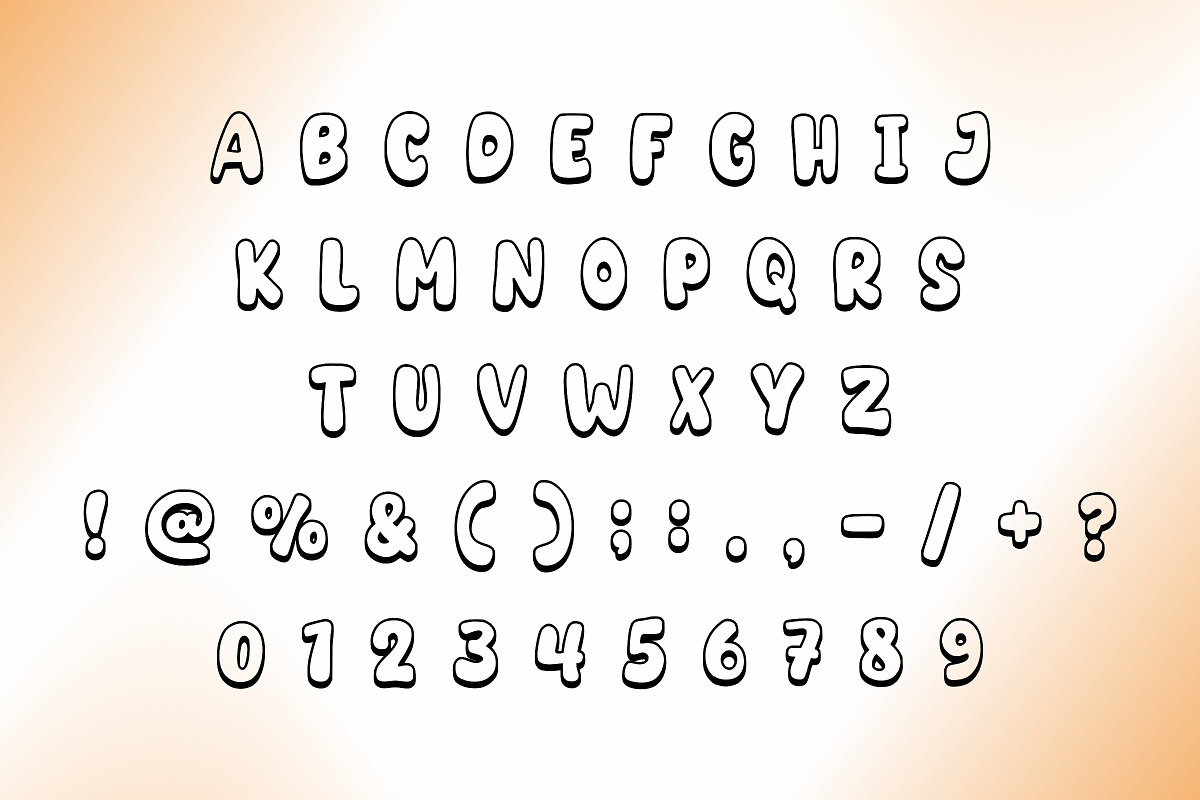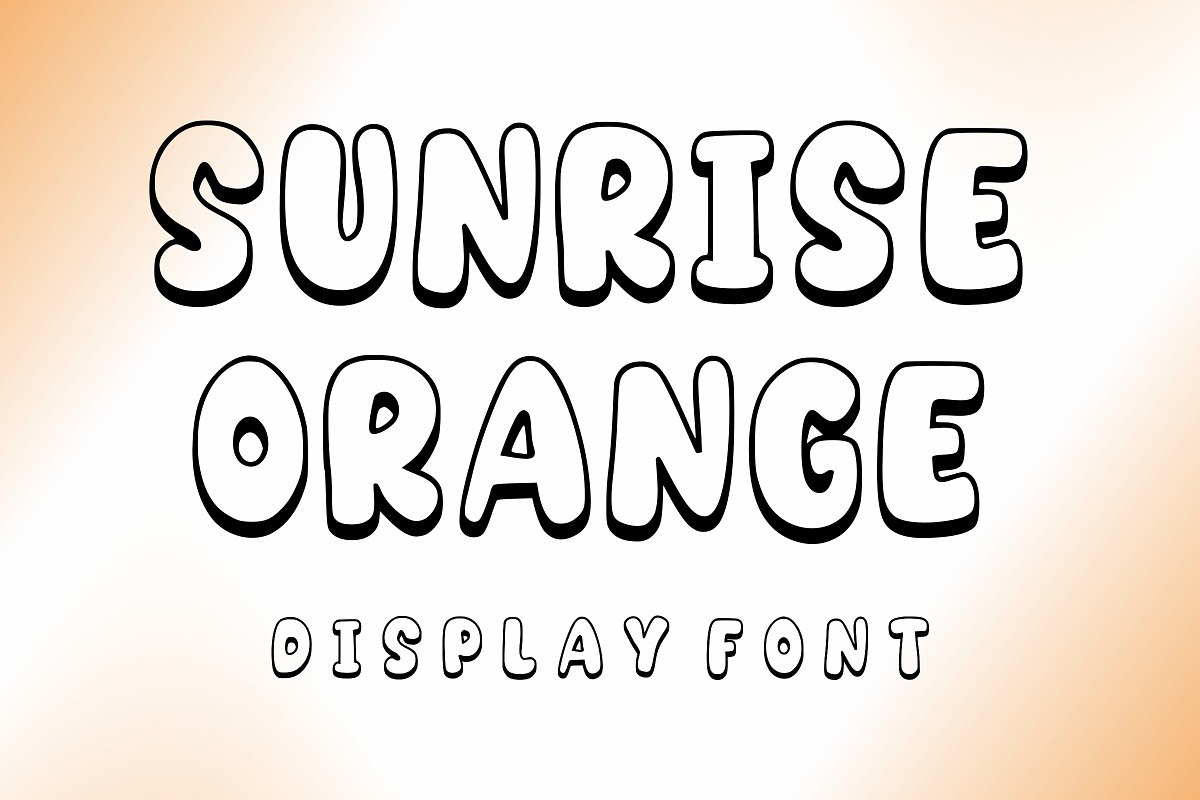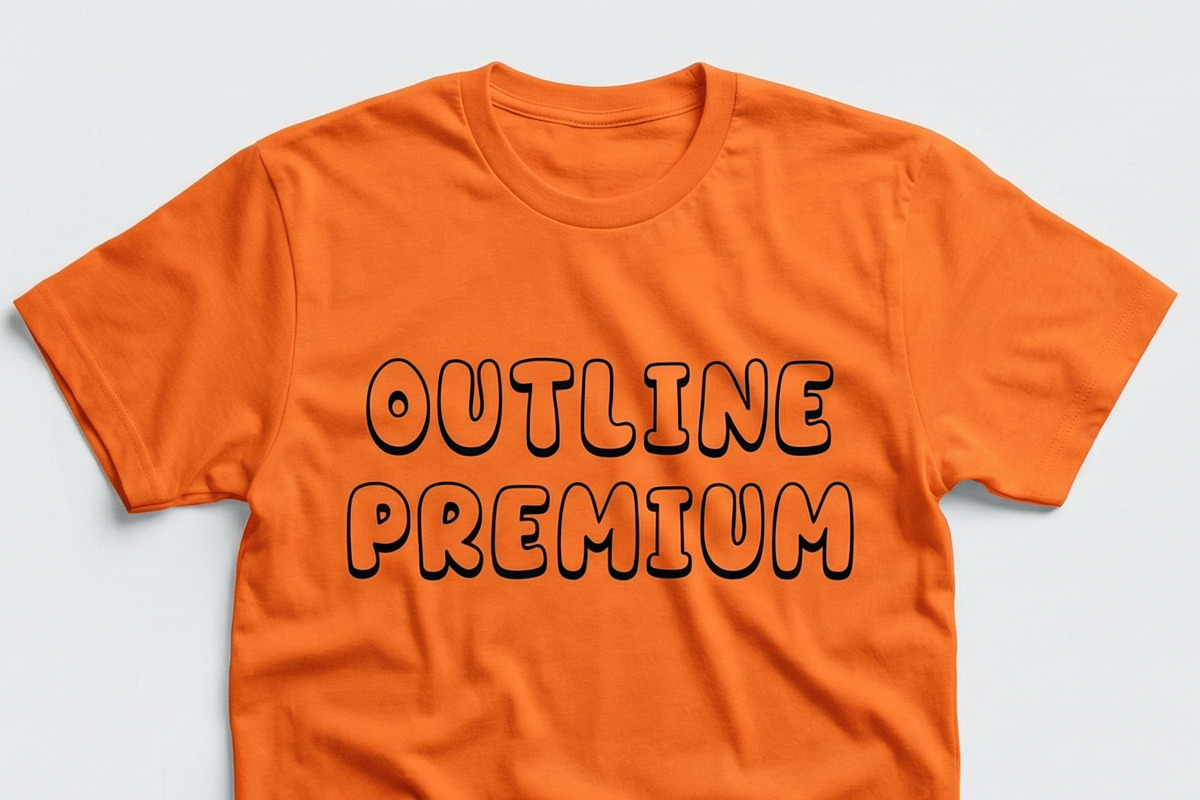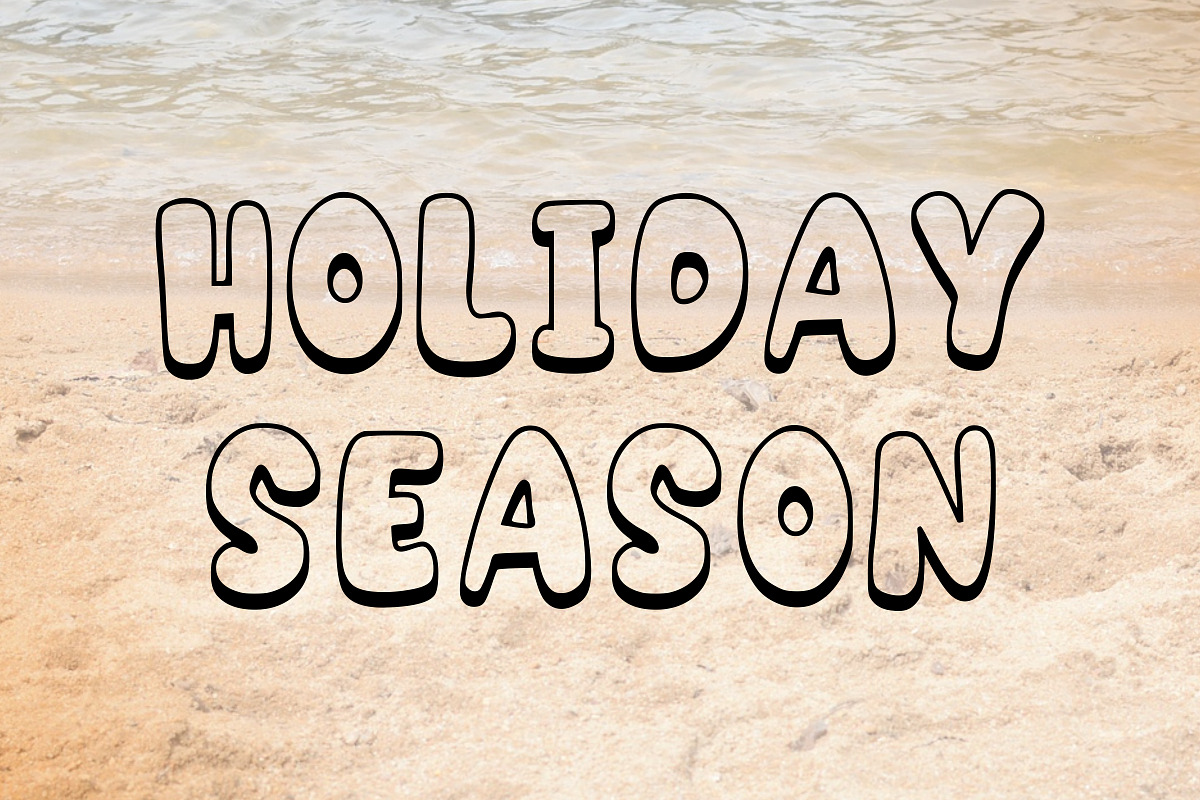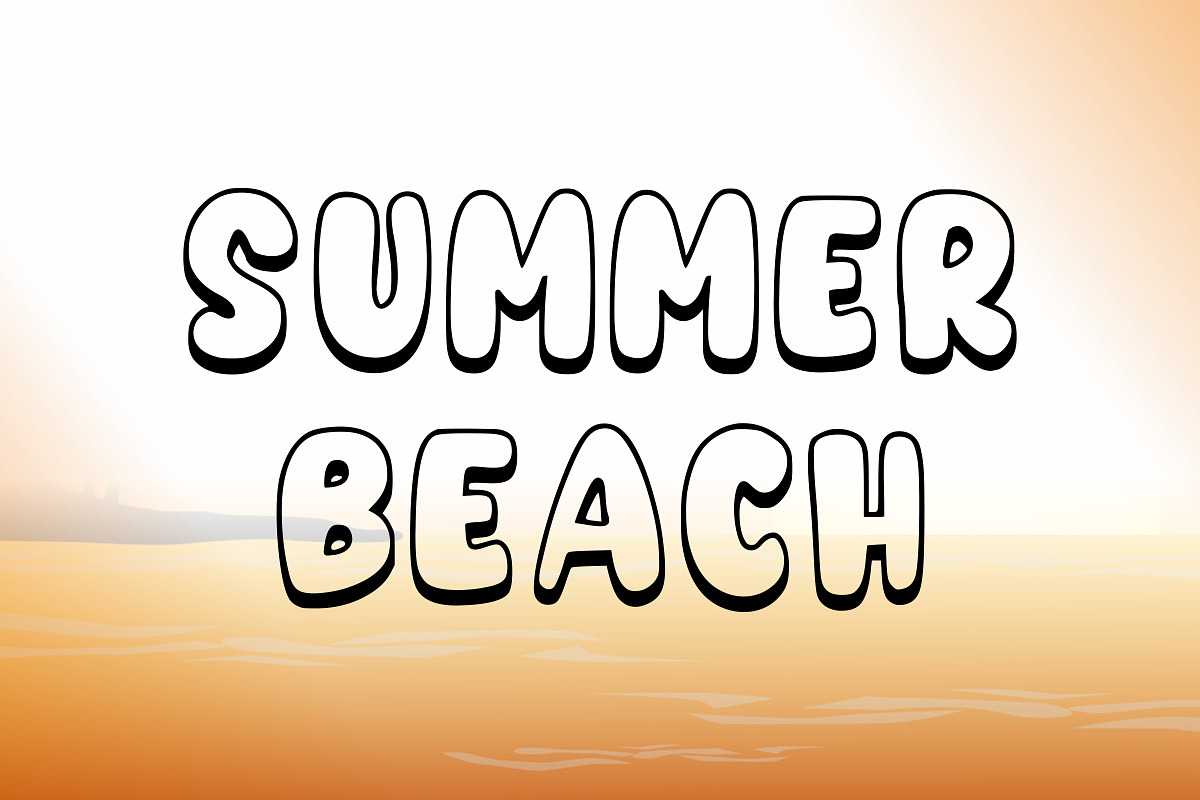
Sunrise Orange
Sunrise Orange is a playful and bold outline display font with a bubbly, hand-drawn style. Featuring thick black outlines and soft rounded edges, this font is perfect for kids projects, posters, branding, t-shirts, stickers, social media graphics, book covers, and cheerful design themes.
Its fun and friendly character makes it ideal for eye-catching headlines and creative typography designs.